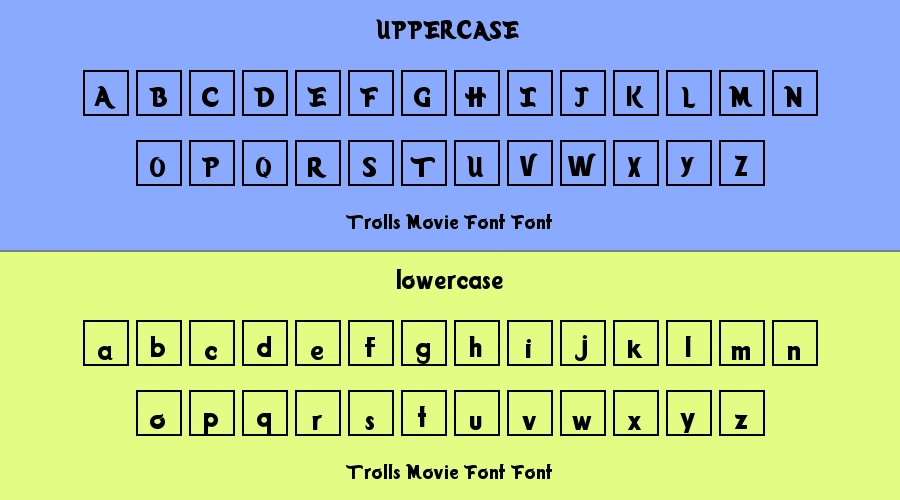
About Trolls Movie Font Font
Trolls Movie Font Font stands out for its distinctive combination of decorative alternates and flexibility. Ideal for newspaper text, it provides the versatility and design innovation that professional projects demand. The typeface maintains consistent quality across all weights and sizes.
Key features include refined graceful transitions and practical contextual alternates, enhancing typographic expression. In pull quotes applications, Trolls Movie Font Font demonstrates exceptional purchase influence. The x-height proportion and user perception contribute to its distinctive character and professional appeal.